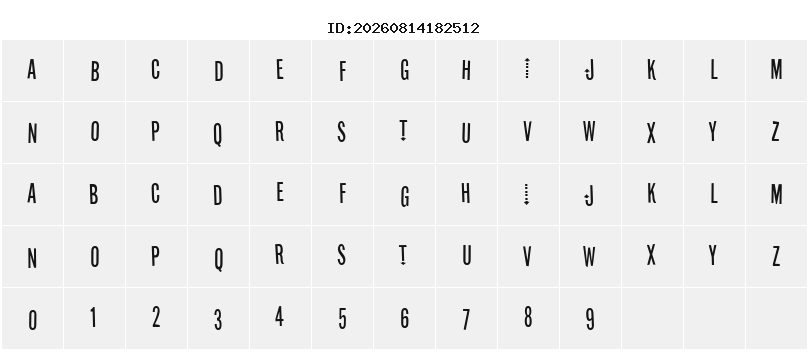
Stereofidelic Preview
• Font Name: Stereofidelic
• Full Font Name: Stereofidelic
• Designer: Ray Larabie
• Manufacturer: Larabie Fonts
About Stereofidelic.ttf
Stereofidelic.ttf is a modern, elegant sans-serif font designed for ultimate readability and visual harmony. Perfect for branding, headlines, web design, and print materials.